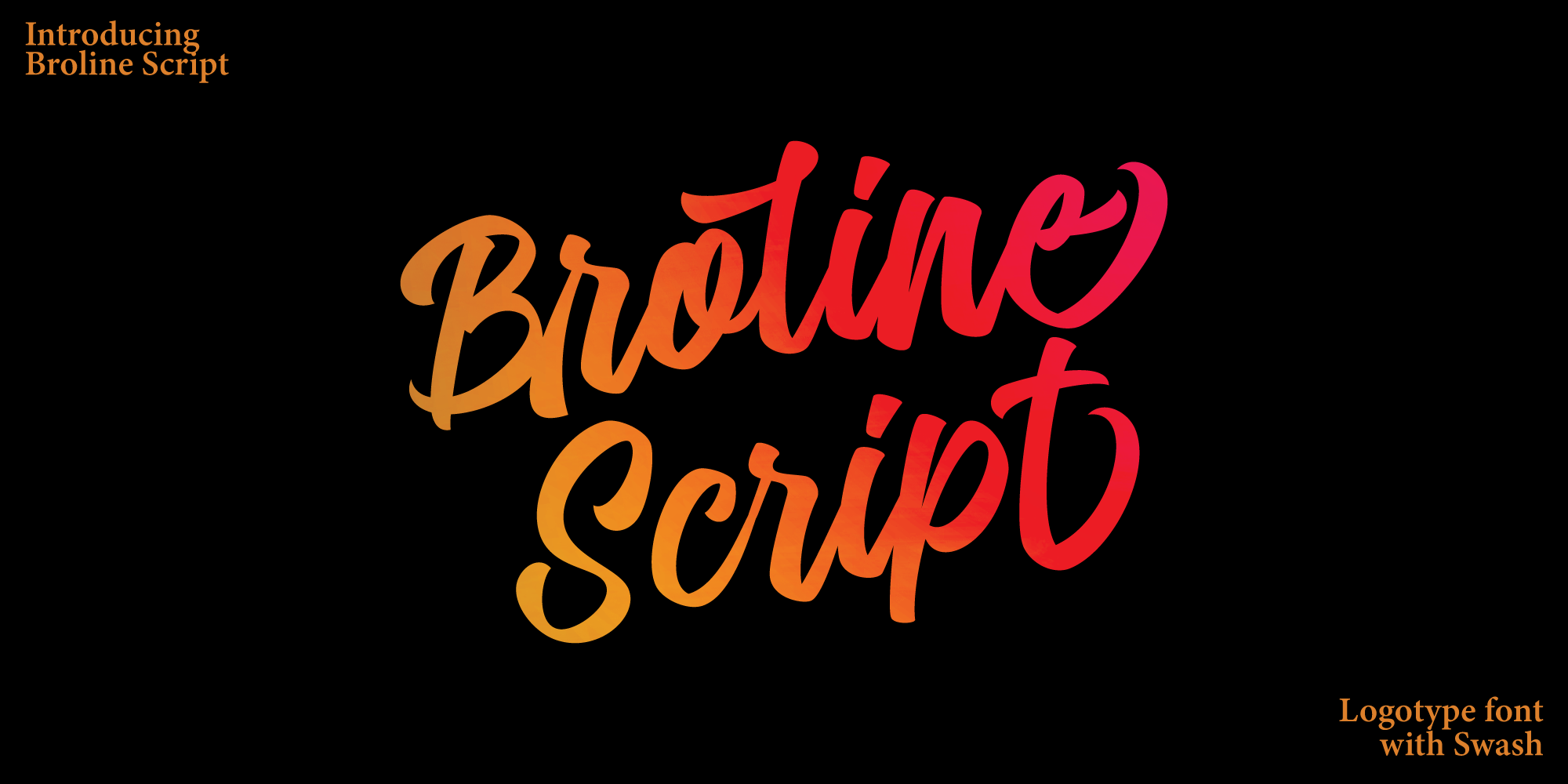
Broline Script Font is perfect for elegant branding, handwritten correspondence, sophisticated stationery, flowing signage, graceful wedding materials, personal branding, script-based advertising campaigns, and refined calligraphy typography.
What makes Broline Script Font exciting is its flowing elegant character that embodies handwritten sophistication and calligraphic beauty through graceful script letterforms and refined appeal. This enchanting typeface features script construction, calligraphic details, and elegant personality that captures the essence of sophisticated handwriting and personal expression, making it ideal for projects seeking to communicate elegance, personal touch, and handwritten authenticity with genuine script appeal and calligraphic sophistication.
The Broline Script Font family includes Regular and Bold weights, each maintaining the characteristic flowing elegance and script appeal that define this distinctive typeface's calligraphic personality and handwritten sophistication.
Broline Script Font Free Download offers designers access to a typeface that perfectly captures the essence of elegant handwriting and sophisticated script artistry. This graceful font brings authentic calligraphic aesthetics to contemporary projects, making it essential for luxury brands, wedding planners, and personal branding professionals targeting audiences who appreciate handwritten elegance and script sophistication. The font's script construction and calligraphic details ensure immediate recognition of elegance and refinement while its distinctive character creates emotional connections among individuals seeking personal expression and handwritten beauty. Whether designing elegant wedding materials, sophisticated brand campaigns, or personal correspondence projects, this font delivers the script authenticity and calligraphic sophistication that elegance-loving audiences expect. Its script foundation and calligraphic symbolism make it indispensable for projects celebrating handwritten artistry, personal expression, and the timeless beauty of elegant script writing, ensuring communications resonate with audiences who value the flowing grace, calligraphic elegance, and handwritten sophistication that define authentic script experiences and elegant personal expression across diverse calligraphy and handwritten applications.